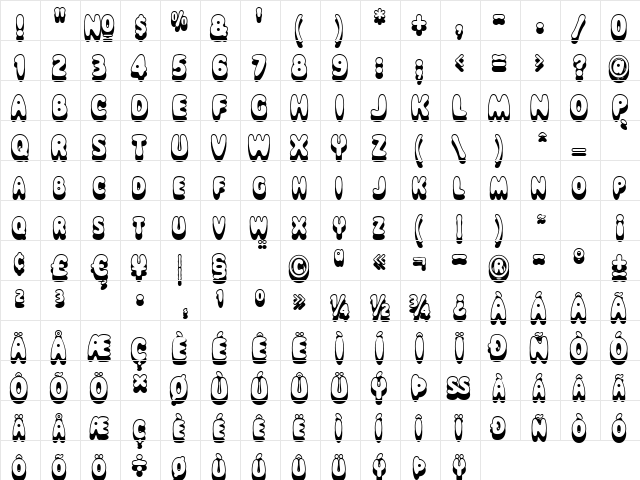
Magical Mystery Tour Outline Shadow Regular
Design Context for Magical Mystery Tour Outline Shadow Typeface
Magical Mystery Tour Outline Shadow brings ornamental detail and strong personality to headlines and identities, where visual impact matters more than quiet functionality.
Font Pairing: Pair with a clean neutral sans-serif for body copy to let Magical Mystery Tour Outline Shadow's character lead without overwhelming the composition.
Pro Tip: Treat Magical Mystery Tour Outline Shadow as the centrepiece of your typographic hierarchy. One strong heading set in a decorative face can carry an entire layout.